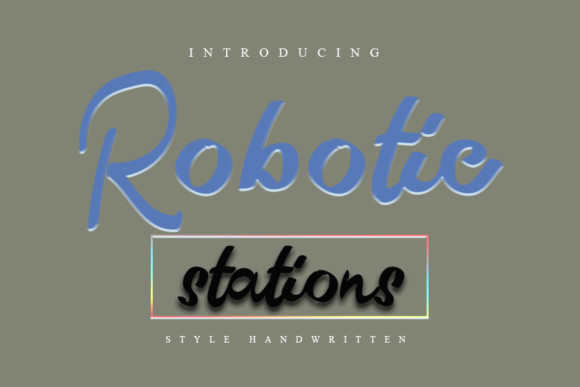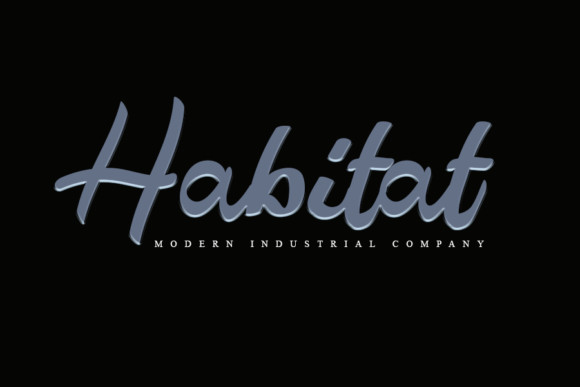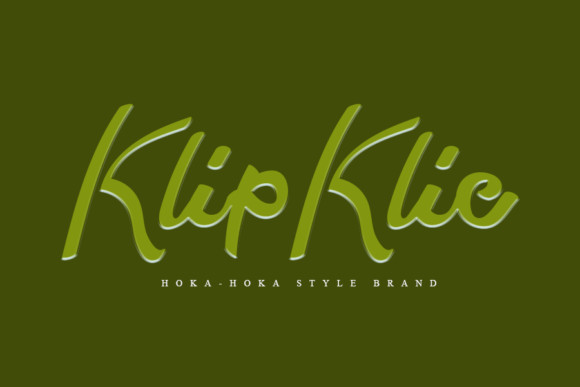
Robotic Stations Font
Robotic Station feels equally charming and elegant. Whether you’re looking for fonts for Instagram or calligraphy scripts for DIY projects, this font will turn any creative idea into a true piece of art!